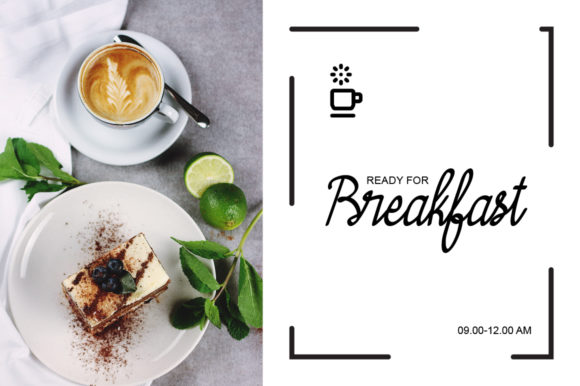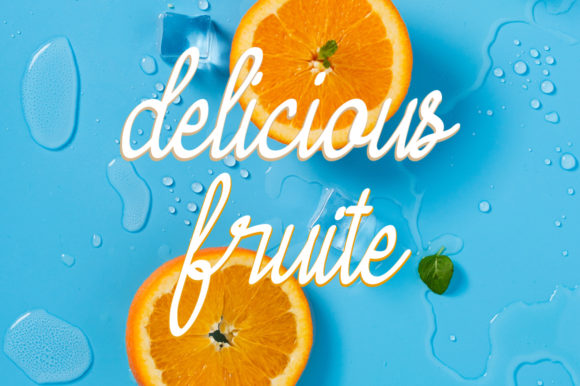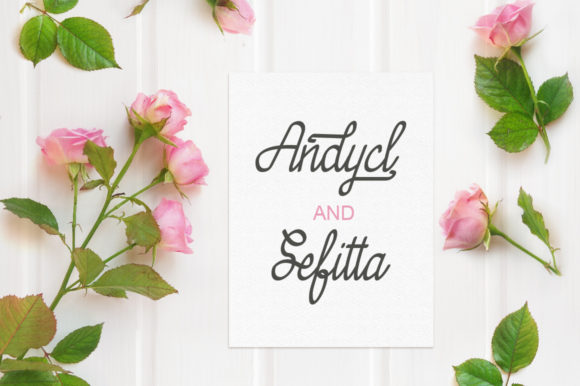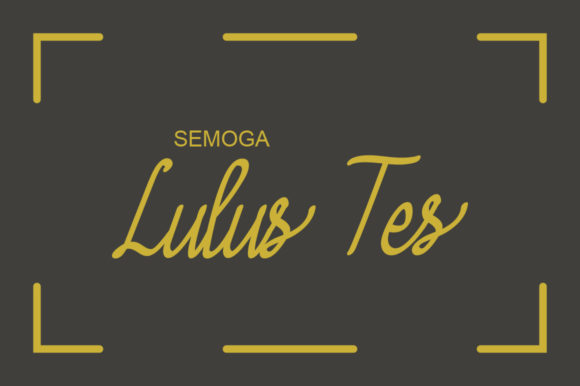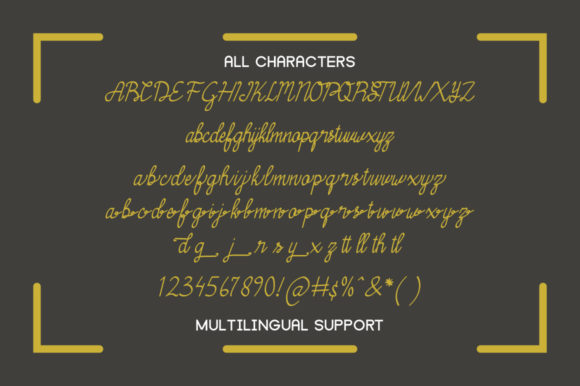
HomeScript FontsSelamat Font Script Fonts Selamat Font FacebookXPinterestWhatsApp Selamat Font Poster 2 Selamat Font Poster 3 Selamat Font Poster 4 Selamat Font Poster 5 Selamat Font Poster 6 About Selamat Font Selamat is a light and charming script with a beautiful feel. It will add a luxurious touch to any design project! DOWNLOAD ON CREATIVE FABRICAThis font is sold and delivered by Creative Fabrica. Font Canyon may earn a commission if you buy through this link. People also explored Sentimeter Font Obela Font Body Silver Font Aryanti Font Looky Tube Font Qaylas Font Roto Font Long Velvet Font Baby Squeaks Font 324 0 TagsSelamat Font Previous articleDear Journal FontNext articleTwas the Night Before Christmas Font LEAVE A REPLY Cancel reply Comment: Please enter your comment! Name:* Please enter your name here Email:* You have entered an incorrect email address! Please enter your email address here Website: Save my name, email, and website in this browser for the next time I comment. Personal Use Free Stone Garden Personal Use Free Read more about this font Awkward Personal Use Free Read more about this font Shelly Personal Use Free Read more about this font Open Heart Personal Use Free Read more about this font BLOG Transform Your Website: Elevate Your Typography with 7 Best Web Font Generators Are you ready to transform your website's typography from ordinary to extraordinary? Great! Today, we're diving into the world of web font generators, which... How to Cut Any Font on Cricut: Convert a Font to SVG (Free) How to Install and Use Fonts on Windows, macOS, and Web Projects Elegant Wedding Invitation Fonts – Handwritten & Script Fonts